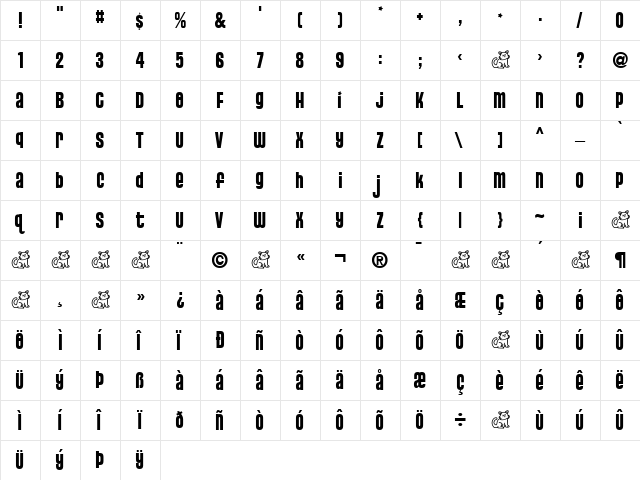
Pussycat Snickers
Design Context for Pussycat Typeface
Pussycat is a composed and adaptable typeface that performs quietly and consistently across a wide range of design contexts.